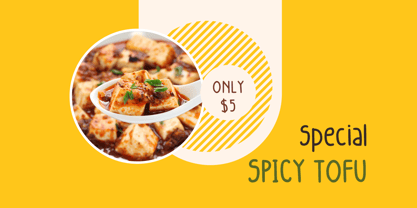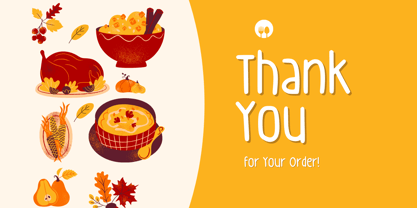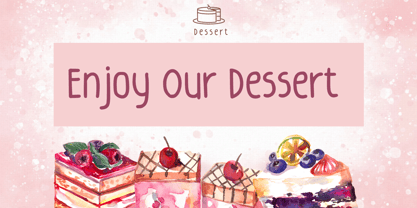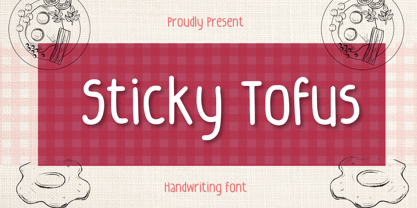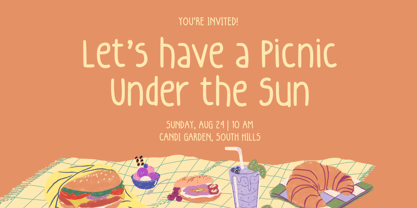
Sticky Tofus
by Aisyah
The Sticky Tofus Font Family was designed by Nur Aiysah Amalia and published by Aisyah. Sticky Tofus contains 1 styles.
Presenting Sticky Tofus, a delightfully charming typeface with a nod to playfulness. Infused with a lovely whimsy, its height adds hints of elegance, making it an ideal asset for branding initiatives and diverse business purposes. Whether you're crafting long, intricate texts or sparking creativity with distinct projects, Sticky Tofus is equipped to deliver a robust yet endearing aesthetic to your design concepts. Give your designs the edge of mischief and sophistication with this versatile font.